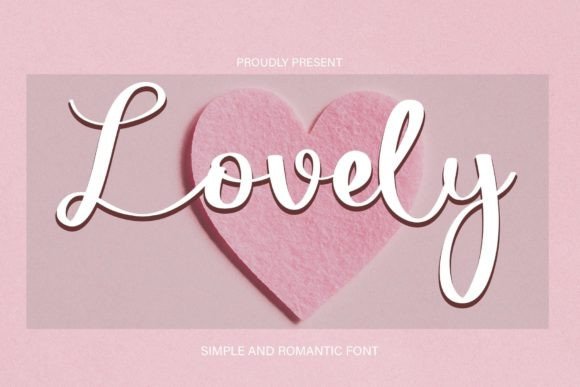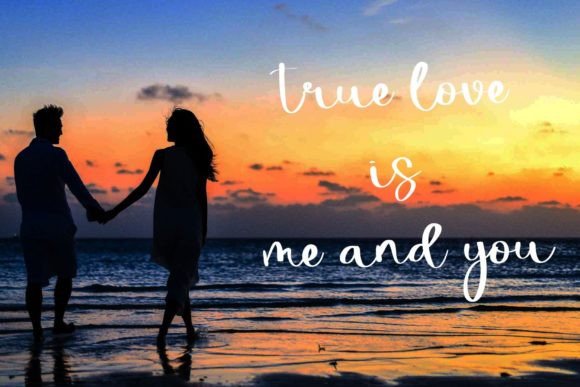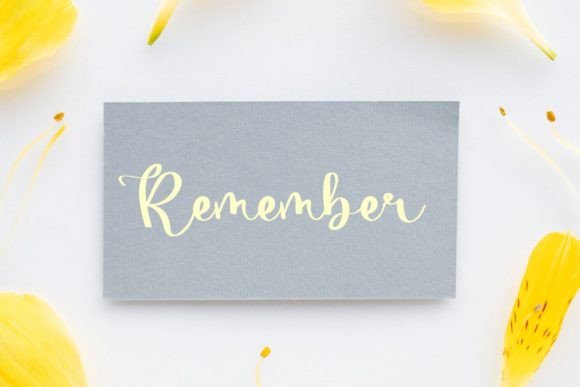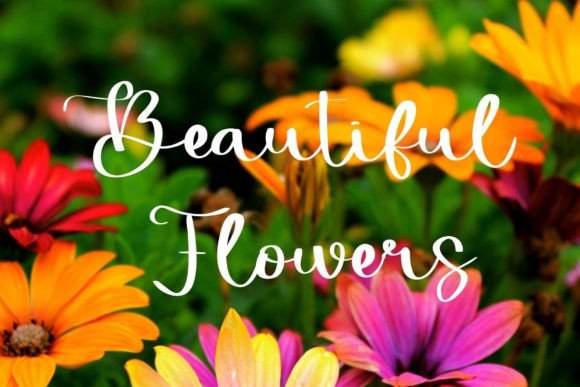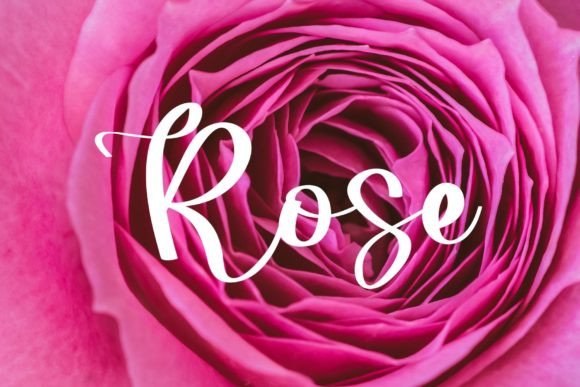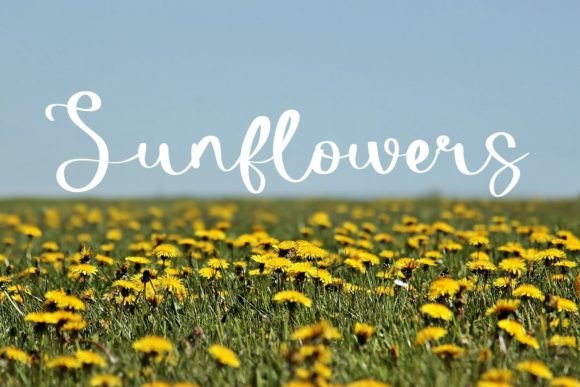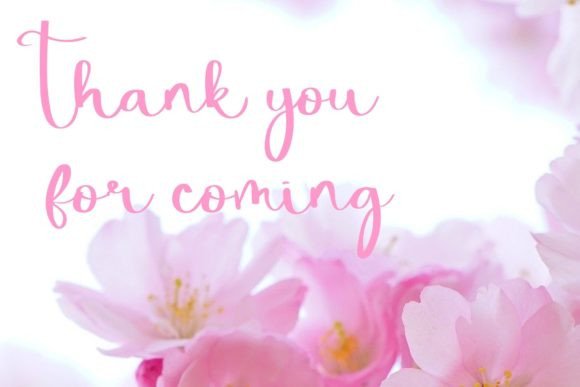
Lovely Font
About Lovely Font
“Lovely” is a slim and delicate handwritten font that radiates a dainty and joyful aesthetic. With its slender and graceful appearance, this font is perfect for writing wedding invitations, cards, and any other design that requires a romantic and personalized touch.
The delicate nature of “Lovely” adds a sense of elegance and intimacy to your projects, making it an ideal choice for occasions that demand a romantic and heartfelt vibe. Whether you’re crafting wedding invitations to set the tone for a special day or designing cards that convey a personalized message, this font enhances the overall charm of your creations.
The slim and delicate strokes of “Lovely” contribute to its graceful and refined look. This font is a valuable asset for designers seeking to infuse their projects with a touch of sophistication and tenderness.
In summary, “Lovely” is more than just a font; it’s a design element crafted to bring joy and romance to your creations. Its slim and delicate handwritten style makes it an excellent choice for wedding invitations, cards, and any project where a personalized and heartfelt touch is desired. Let “Lovely” be the font that adds an extra layer of charm to your designs, making them truly special and memorable.